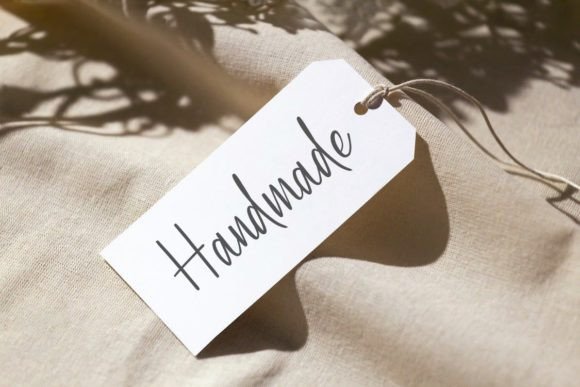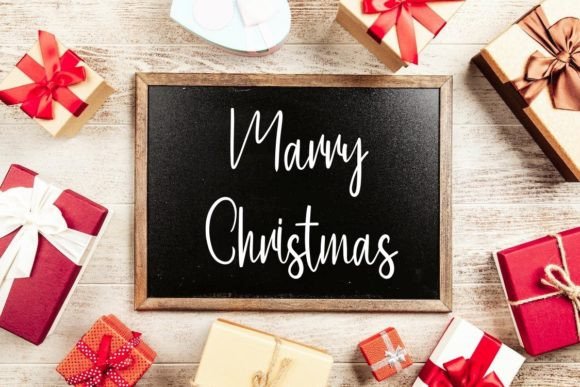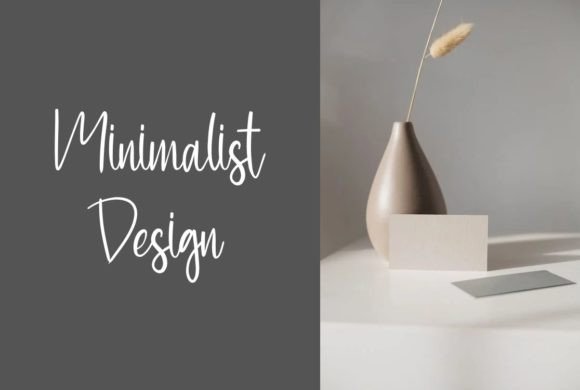
Notebook Christmas Font
About Notebook Christmas Font
Notebook Christmas font is a sweet and delicate handwritten script designed to add a charming and festive touch to your holiday projects. When you download Notebook Christmas font, you get a beautiful typeface that combines dainty strokes with joyful character, making it perfect for seasonal and romantic designs.
A Delicate Handwritten Style
This font features a soft and graceful handwriting style that feels personal and warm. Download Notebook Christmas font to bring a heartfelt, handmade quality to your work. Its delicate curves and smooth flow give your designs a natural, inviting appearance.
Perfect for Holiday and Wedding Designs
Notebook Christmas font is ideal for creating wedding invitations, greeting cards, holiday stationery, and thank you notes. By downloading Notebook Christmasfont, you can craft personalized projects that radiate warmth and festive cheer, making every detail feel special.
Versatile for Various Creative Uses
Whether you’re designing social media posts, gift tags, or seasonal packaging, Notebook Christmasfont fits a wide range of holiday and romantic projects. Download Notebook Christmasfont to add an elegant yet approachable handwritten touch to your creative work.
Timeless and Joyful
Balancing classic handwritten aesthetics with joyful energy, this font provides a timeless appeal that works well beyond the holiday season. Download Notebook Christmasfont to create designs that feel both fresh and heartfelt all year round.
Downloading Notebook Christmasfont allows you to access a versatile, beautifully crafted script that enhances your seasonal and personal projects. Its elegant yet playful nature makes it a favorite for anyone looking to add a unique handwritten style.